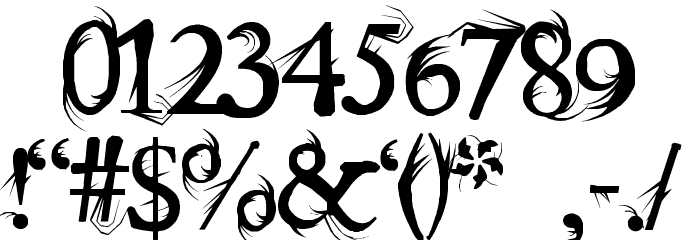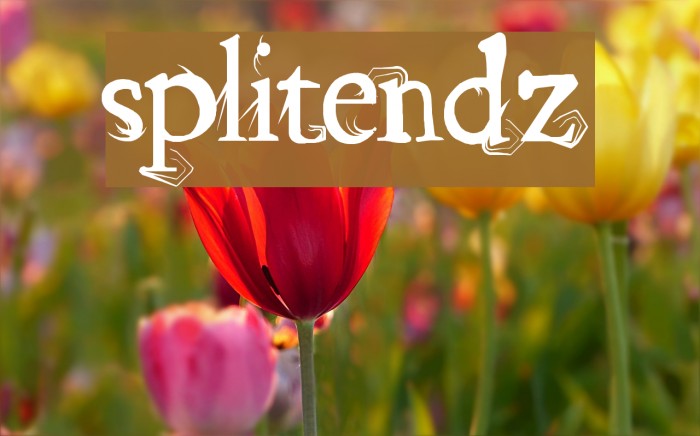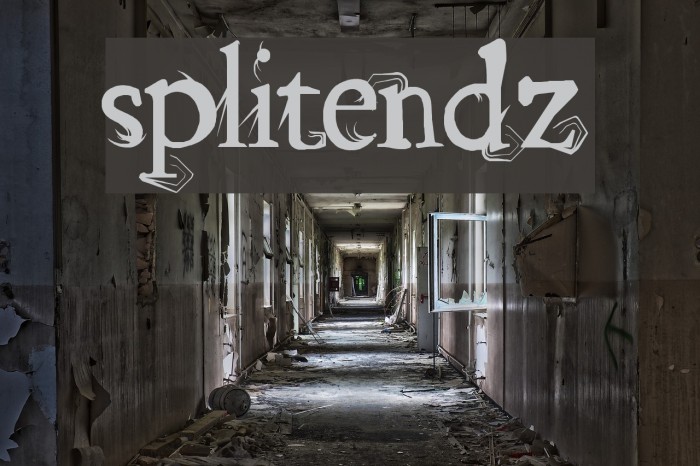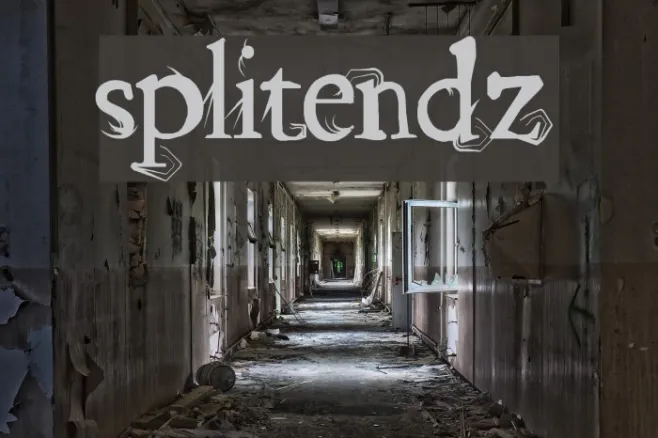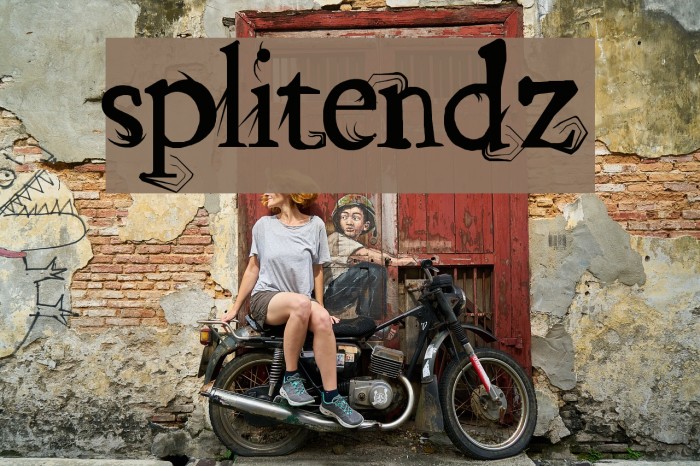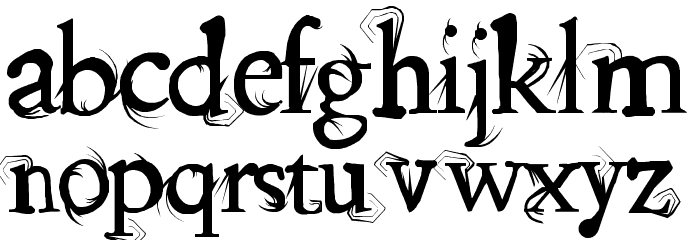
splitendz Font
splitendz Description
This font exhibits a unique and dramatic style with sharp, angular edges and a dynamic flow that gives each character a sense of movement. The strokes are bold and pronounced, with a high contrast between thick and thin lines, creating a striking visual impact. The design incorporates decorative elements that resemble brush strokes or ink splatters, adding an artistic flair. The uppercase and lowercase letters maintain a consistent style, while the numerals and special characters complement the overall aesthetic. This font is ideal for projects that require a bold statement or an artistic touch.
| Use Case | Headlines, Logos, Artistic projects |
| Proposed Projects | Ideal for artistic posters, album covers, branding for edgy or creative industries, and any project needing a bold, dramatic typeface. |